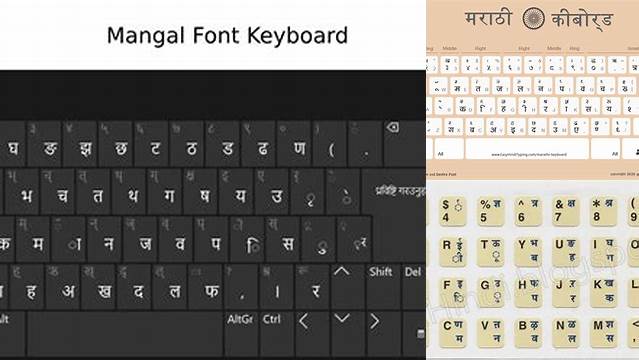
Introduction: Diving into the World of Unicode Mangal Font for Marathi
The Unicode Mangal font holds a special place in the hearts of those who work with the Marathi language on computers. This font isn't just any typeface; it's a gateway to digital communication and expression in Marathi. But why is it so important? Well, the Mangal font is a Unicode font, which means it adheres to a universal standard for representing characters. This is super important because it ensures that your Marathi text looks the same no matter what device or platform it's viewed on. Imagine sending a beautifully crafted Marathi message, only for it to appear as a jumbled mess of symbols on the recipient's screen – that's the kind of headache Unicode fonts like Mangal help you avoid.
The Mangal font has become the de facto standard for Marathi typing across various platforms, especially within government and official communications. Its widespread adoption ensures consistency and readability, which is crucial in professional settings. Whether you're drafting official documents, creating presentations, or designing websites, using the Mangal font ensures that your Marathi content is displayed accurately and professionally. Plus, because it's a Unicode font, Mangal supports a wide range of characters and symbols, making it suitable for diverse writing needs. You don't have to worry about certain characters not displaying correctly – Mangal's got you covered!
Beyond its technical advantages, the Unicode Mangal font plays a vital role in preserving and promoting the Marathi language in the digital age. By providing a reliable and consistent way to type in Marathi, it empowers users to create content, communicate online, and engage with digital resources in their native language. This is especially important in a world where digital communication is becoming increasingly dominant. Using the Mangal font helps ensure that Marathi remains a vibrant and accessible language online, fostering a sense of community and cultural identity among Marathi speakers worldwide. So, when you download the Unicode Mangal font, you're not just getting a typeface – you're contributing to the preservation and promotion of a beautiful language.
Why Unicode Mangal Font is Essential for Marathi Typing
Let's dig deeper into why the Unicode Mangal font is so essential for Marathi typing. Guys, think of it this way: in the digital world, languages need a common language, too! That's where Unicode comes in. Unicode is like a universal translator for computers, ensuring that every character has a unique code, no matter the language. This is where the Mangal font shines. It's built on the Unicode standard, which means your Marathi text will display correctly on any device, anywhere in the world. No more scrambled characters or compatibility issues!
The beauty of Unicode lies in its ability to assign a unique numerical value (a code point) to each character, symbol, and glyph across various writing systems. Before Unicode, different systems used different encoding methods, leading to a chaotic situation where text created on one system might be unreadable on another. This was a major hurdle for multilingual communication and content creation. Unicode solved this problem by providing a standardized system that could represent virtually any character from any language. The Mangal font, being a Unicode font, fully leverages this standard, making it a reliable choice for Marathi text. When you type in Mangal, you can be confident that your words will be displayed correctly, preserving the integrity of your message.
One of the biggest advantages of using the Unicode Mangal font is its compatibility across different platforms and applications. Whether you're using Windows, macOS, Linux, or even mobile devices, Mangal ensures that your Marathi text looks the way it should. This is especially crucial in today's interconnected world, where we constantly share documents and messages across different devices. Imagine creating a beautiful Marathi presentation on your laptop and then discovering that the fonts are all messed up when you open it on your colleague's computer – a nightmare, right? With Mangal, you can avoid such compatibility issues and ensure that your work is always presented professionally.
Moreover, the Mangal font is widely supported by various software applications, including word processors, graphic design tools, and web browsers. This widespread support makes it easy to incorporate Marathi text into your digital projects, whether you're writing a report, designing a website, or creating social media content. You don't have to worry about finding workarounds or dealing with font compatibility issues – Mangal seamlessly integrates with the tools you already use. This not only saves you time and effort but also allows you to focus on creating high-quality content without technical hassles. The ease of use and broad compatibility of Mangal make it an indispensable tool for anyone working with Marathi in the digital realm.